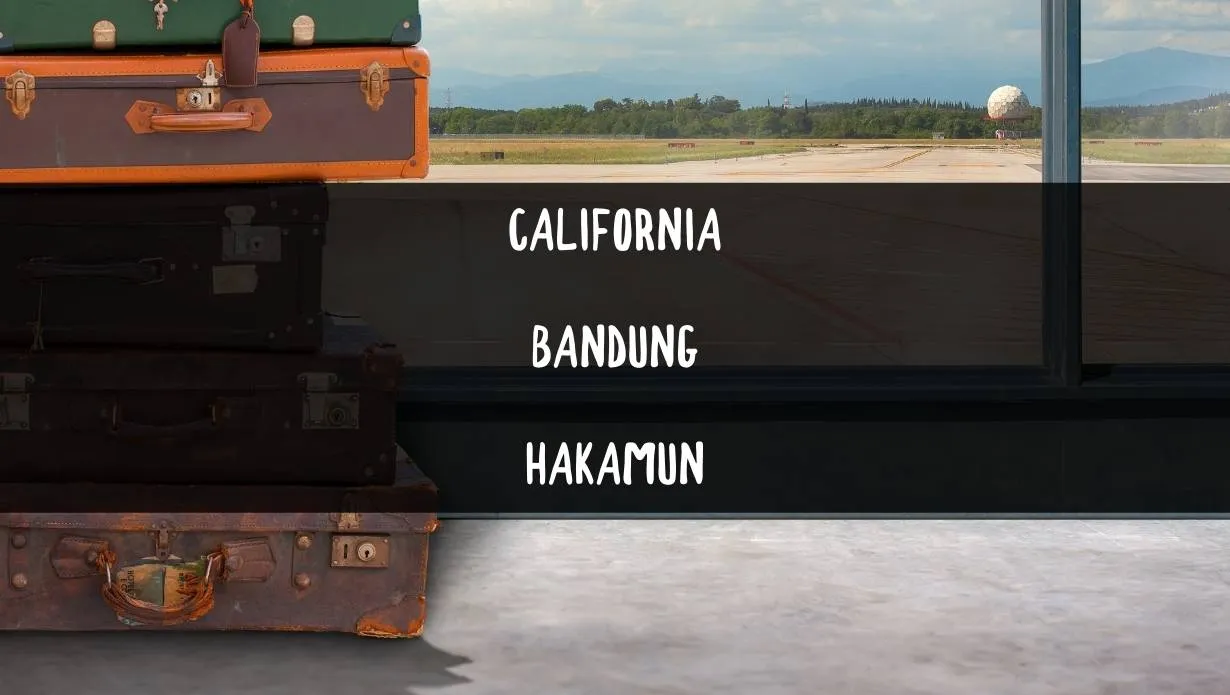
Westfalia Font is a modern calligraphy typeface with a unique twist. It was created by Rambler Creative in 2017. Westfalia Font is perfect for creating beautiful, modern calligraphy designs.
It has a very flowing, organic feel to it. This typeface is identical to the fabulous 50s normal font. This typeface basically belongs to the brush category. It is available in one regular style. This typeface contains upper and lower-case alphabets, numbers, and special characters.
- Westfalia Regular
| Designer | Rambler Creative |
| Style | Brush |